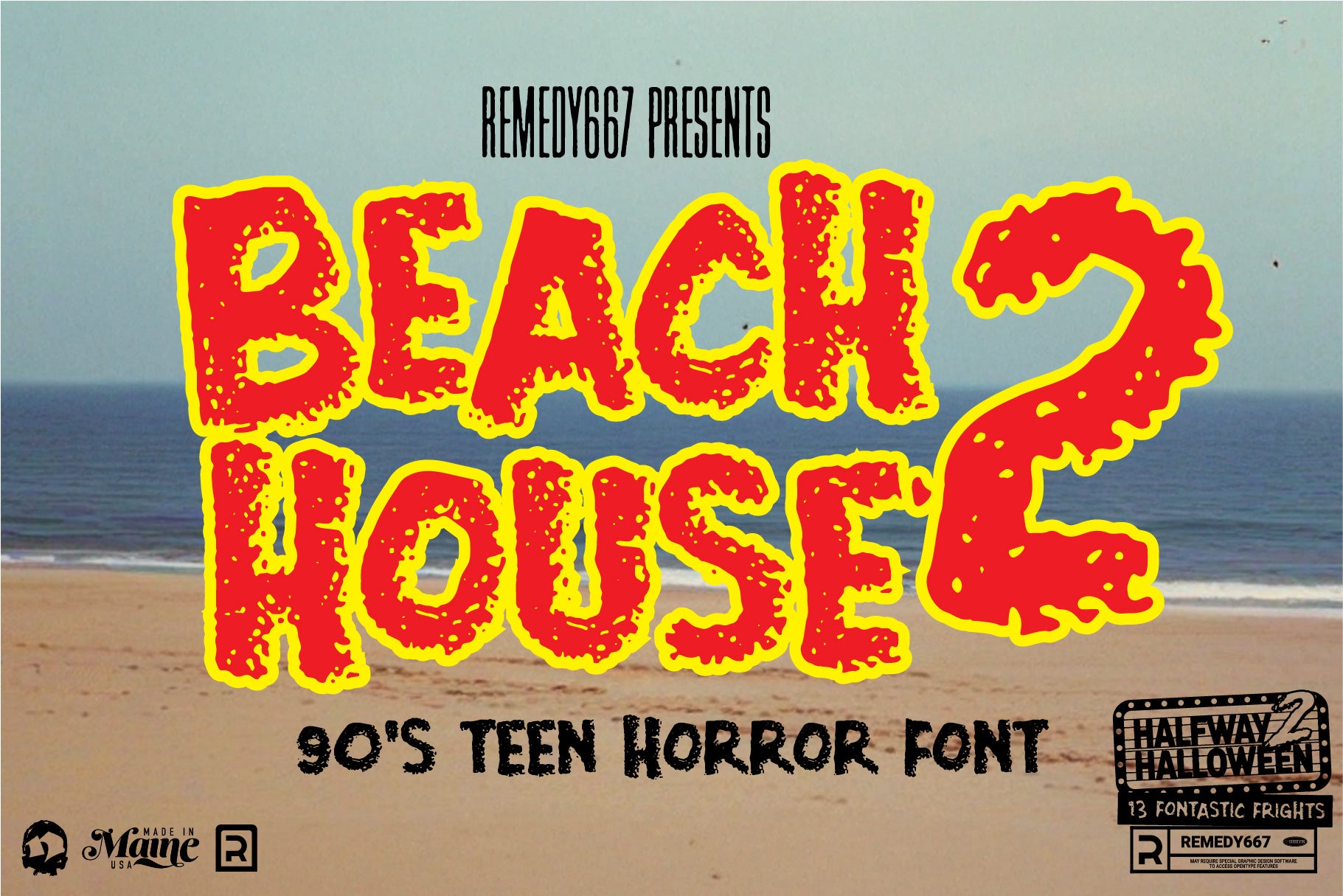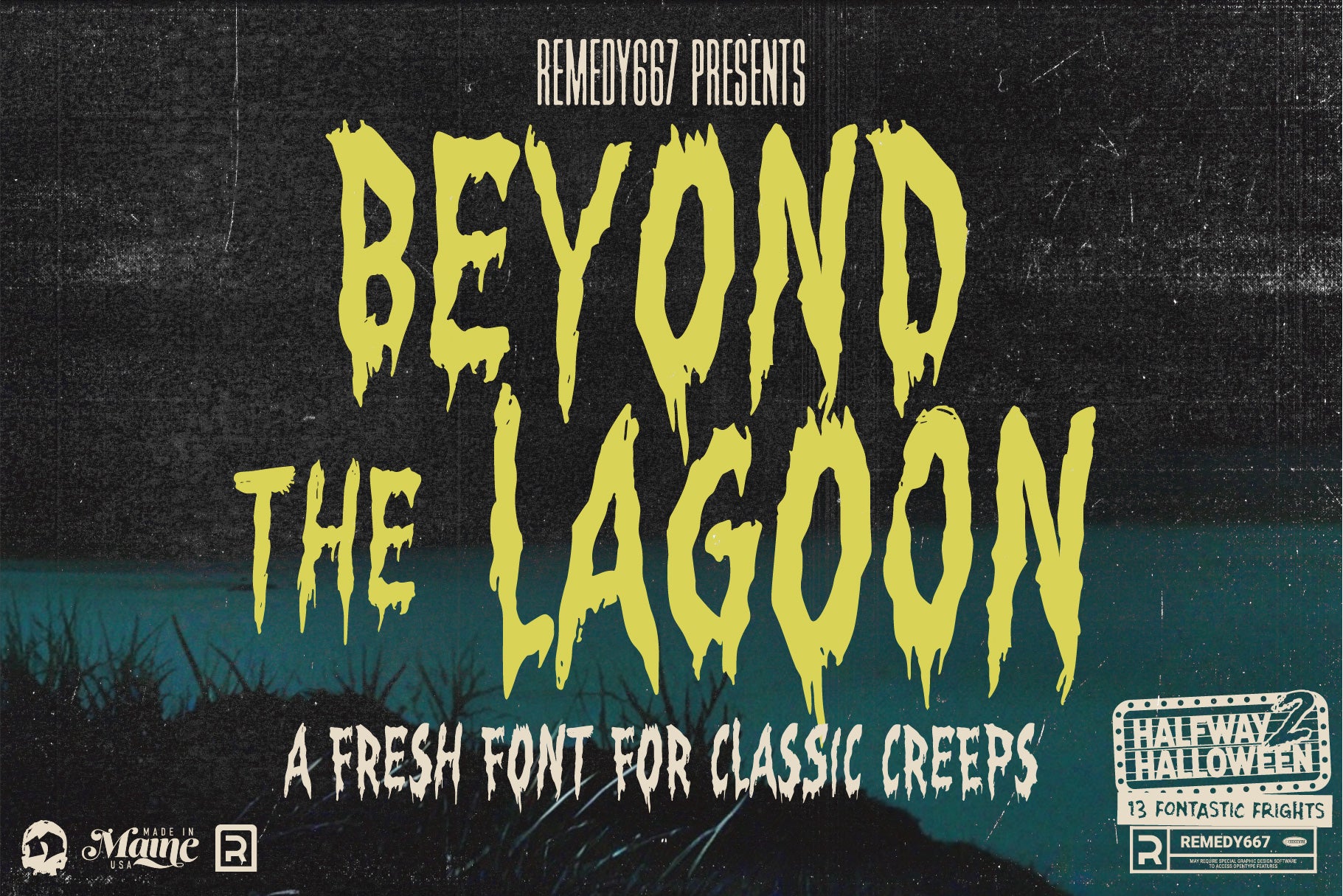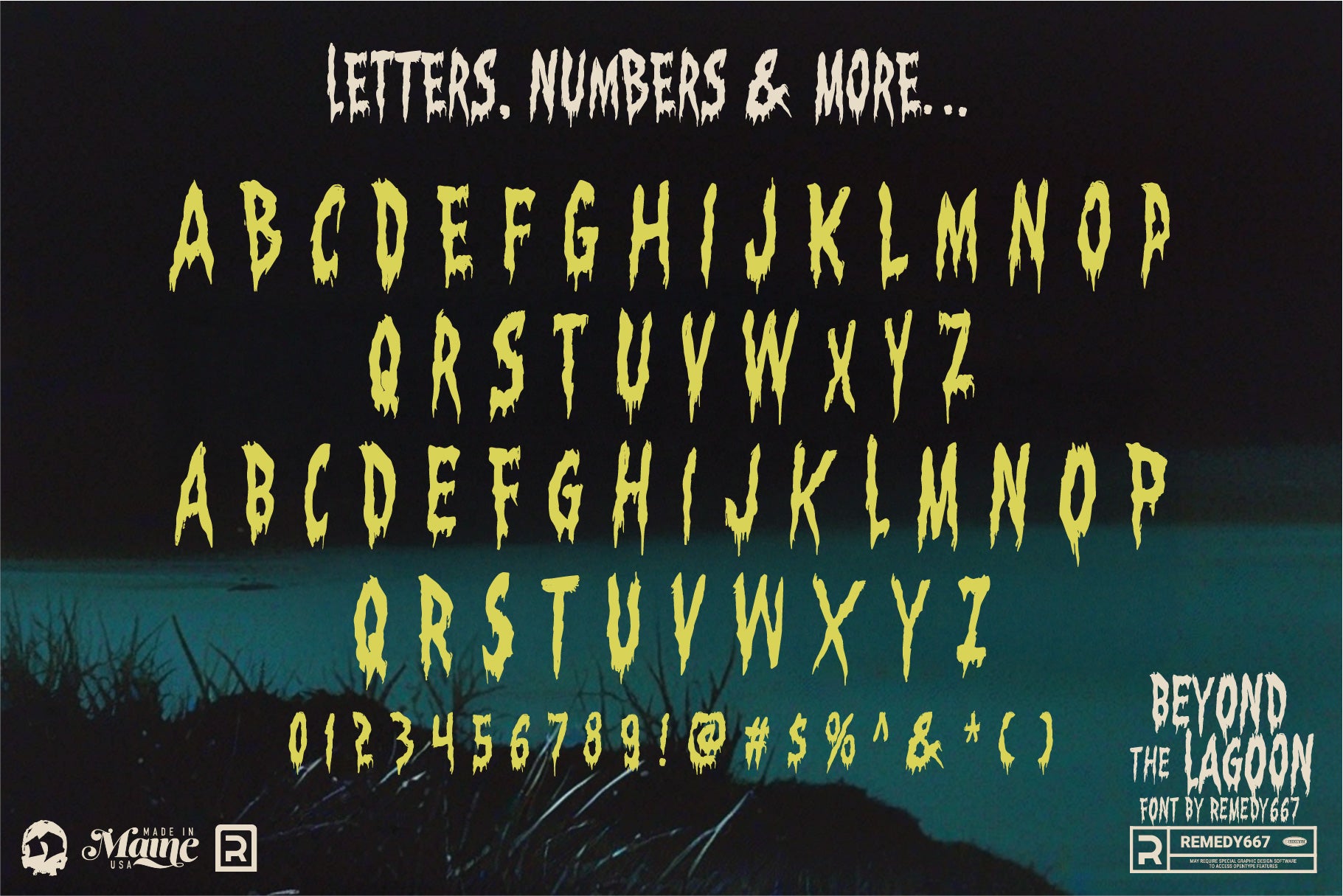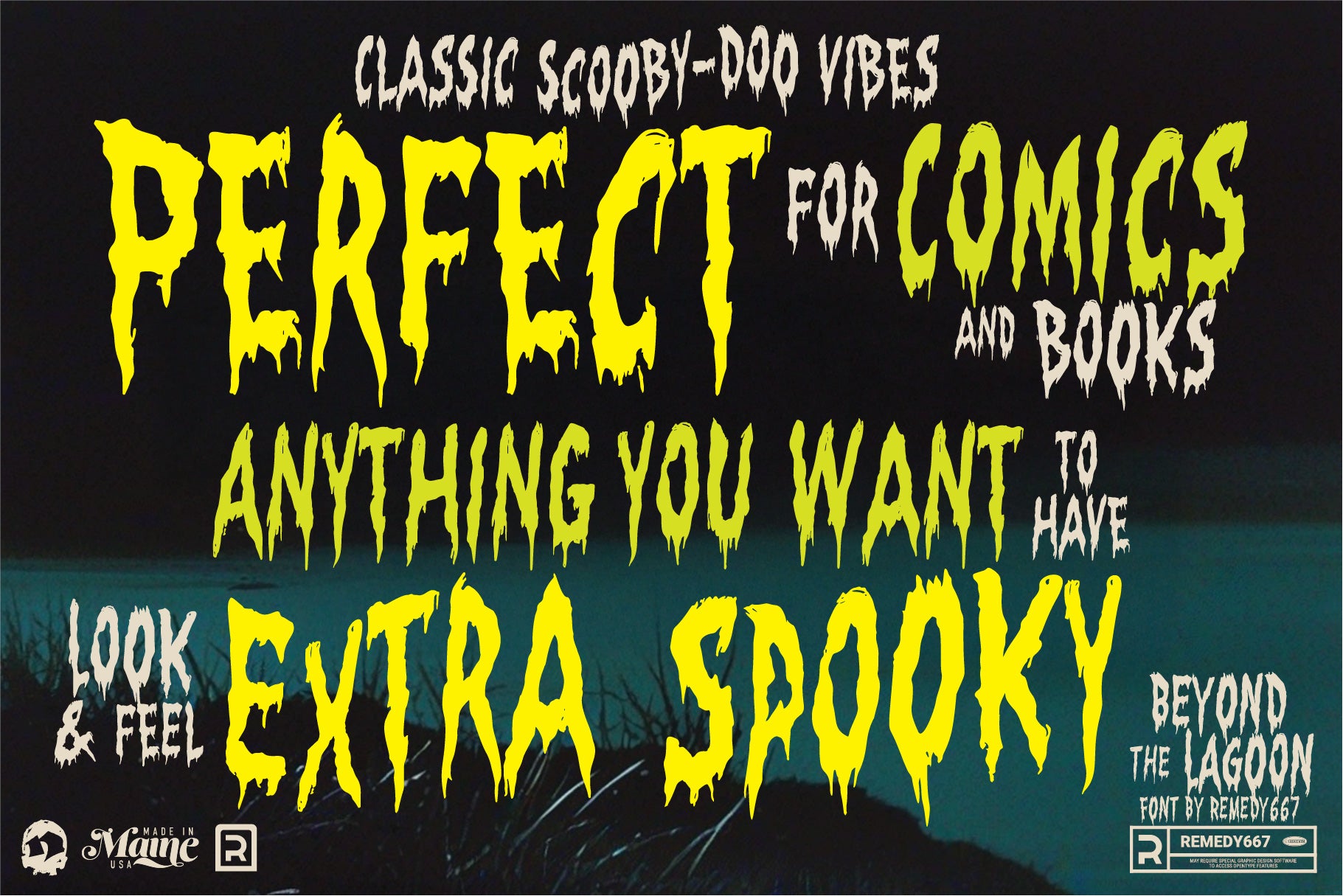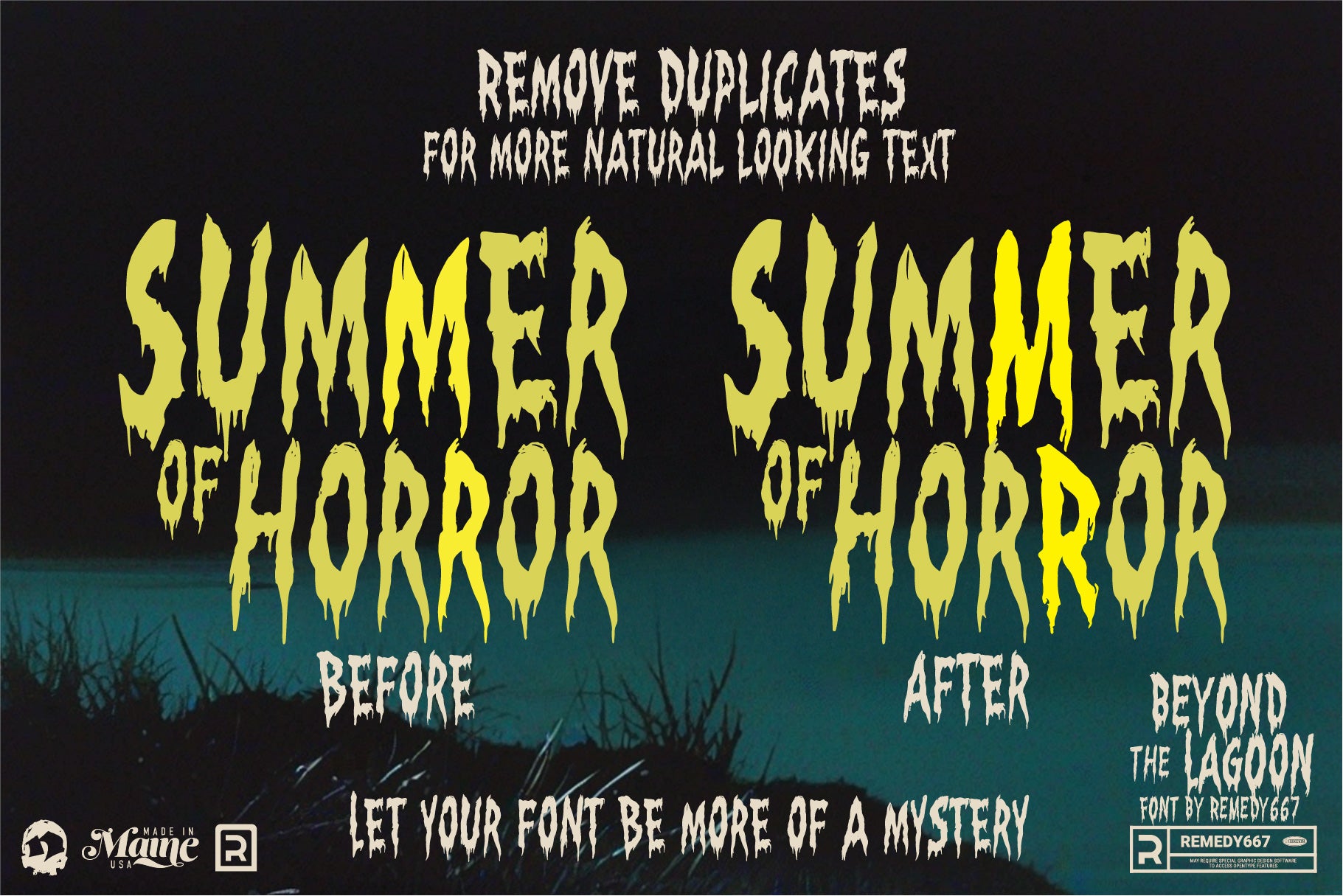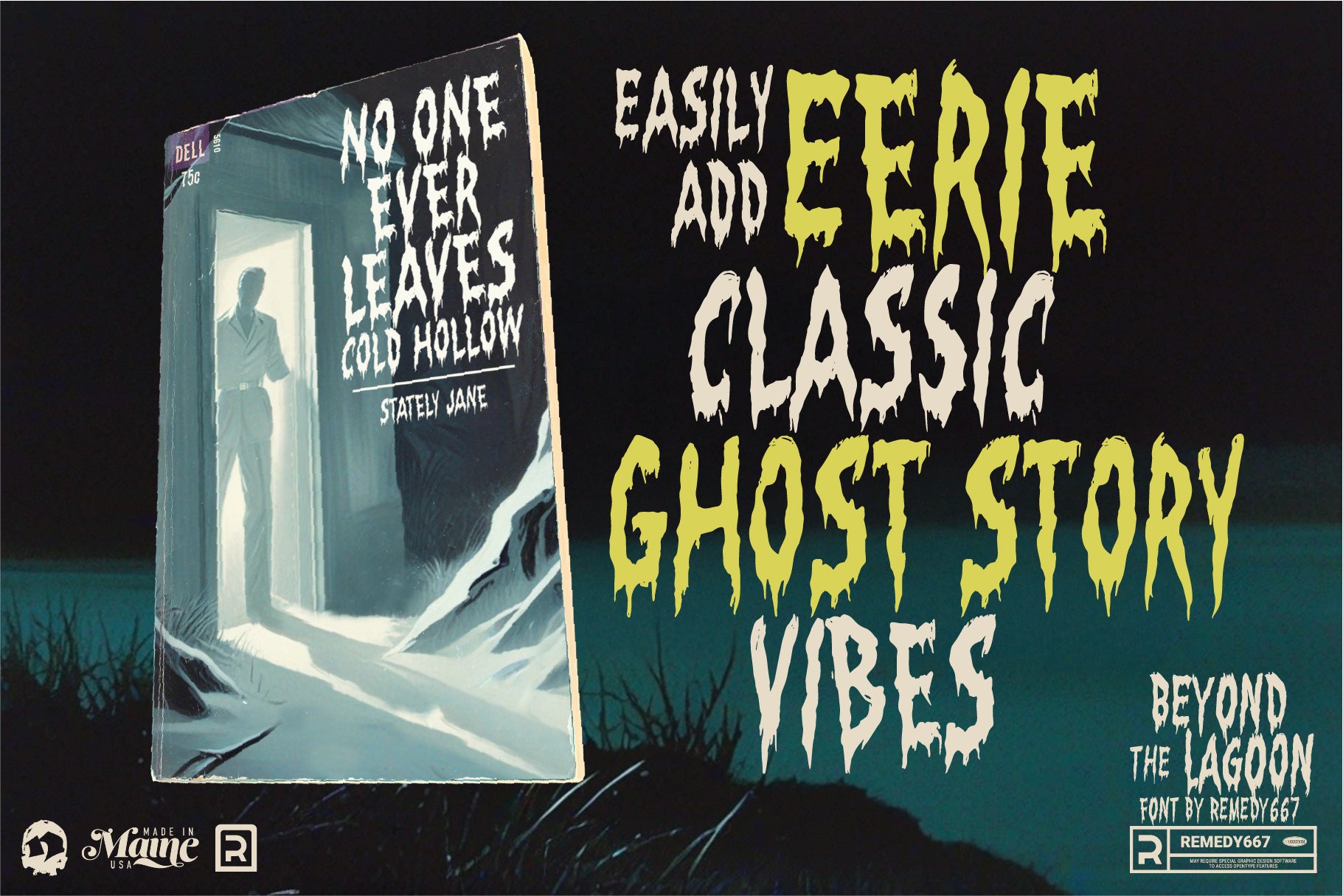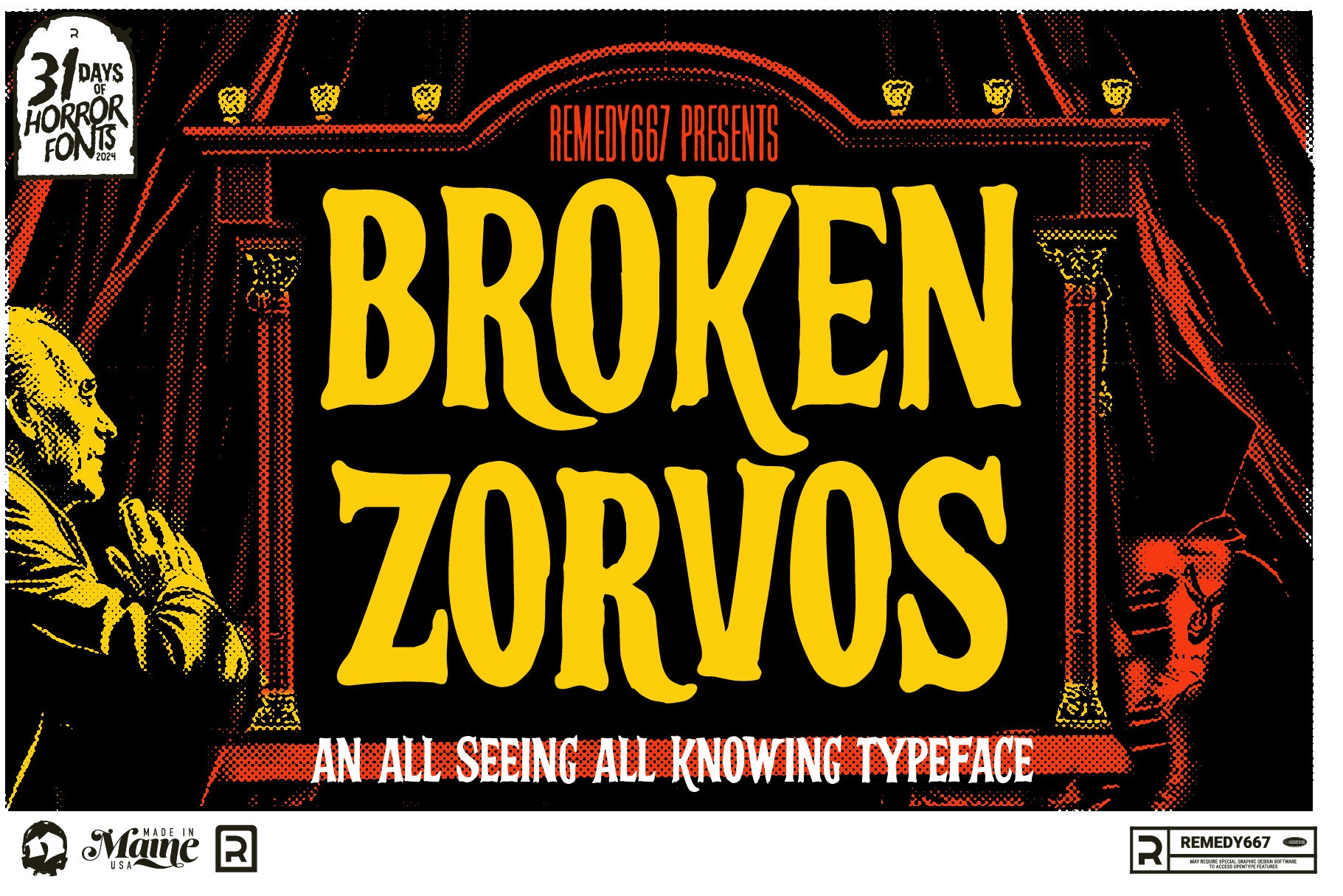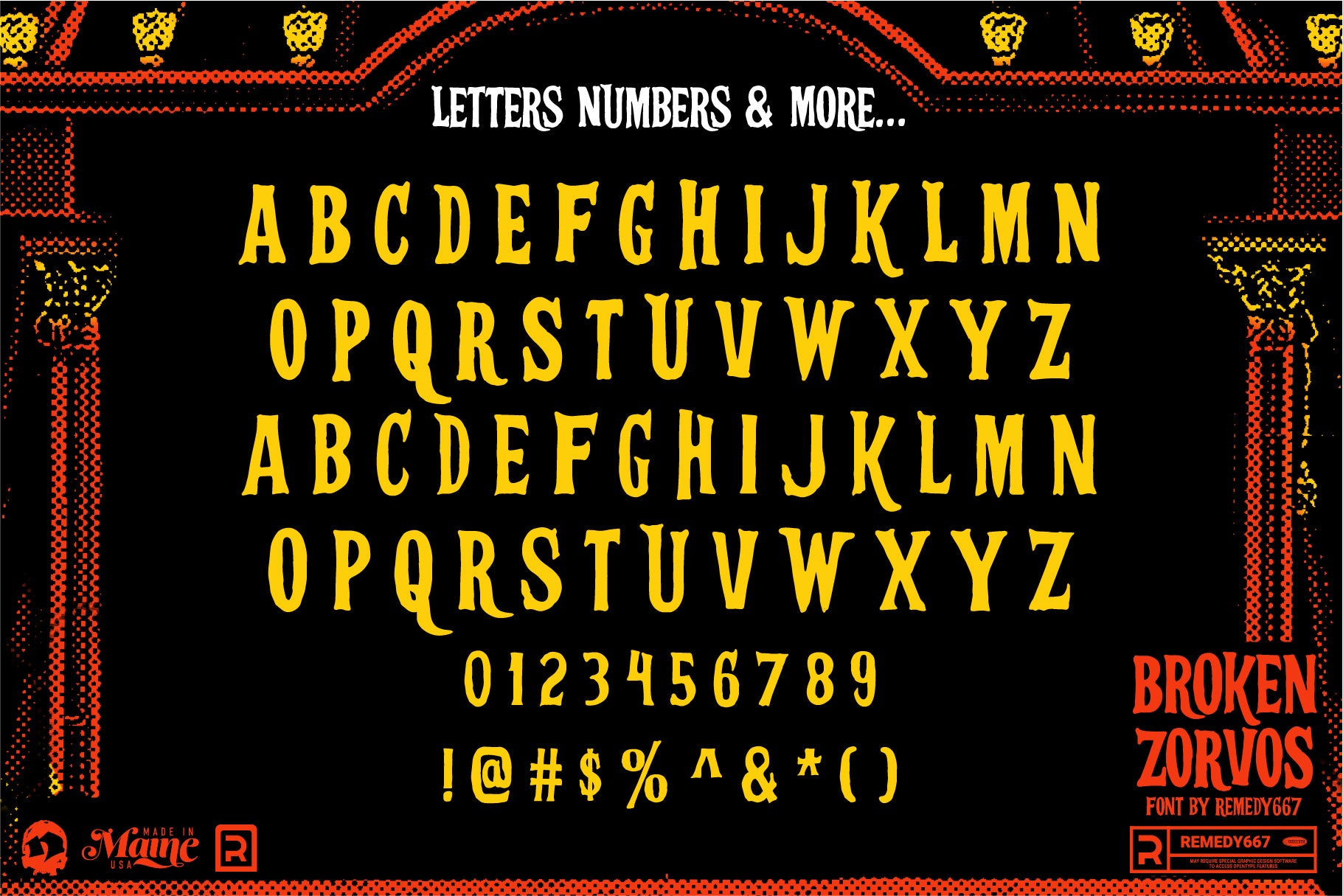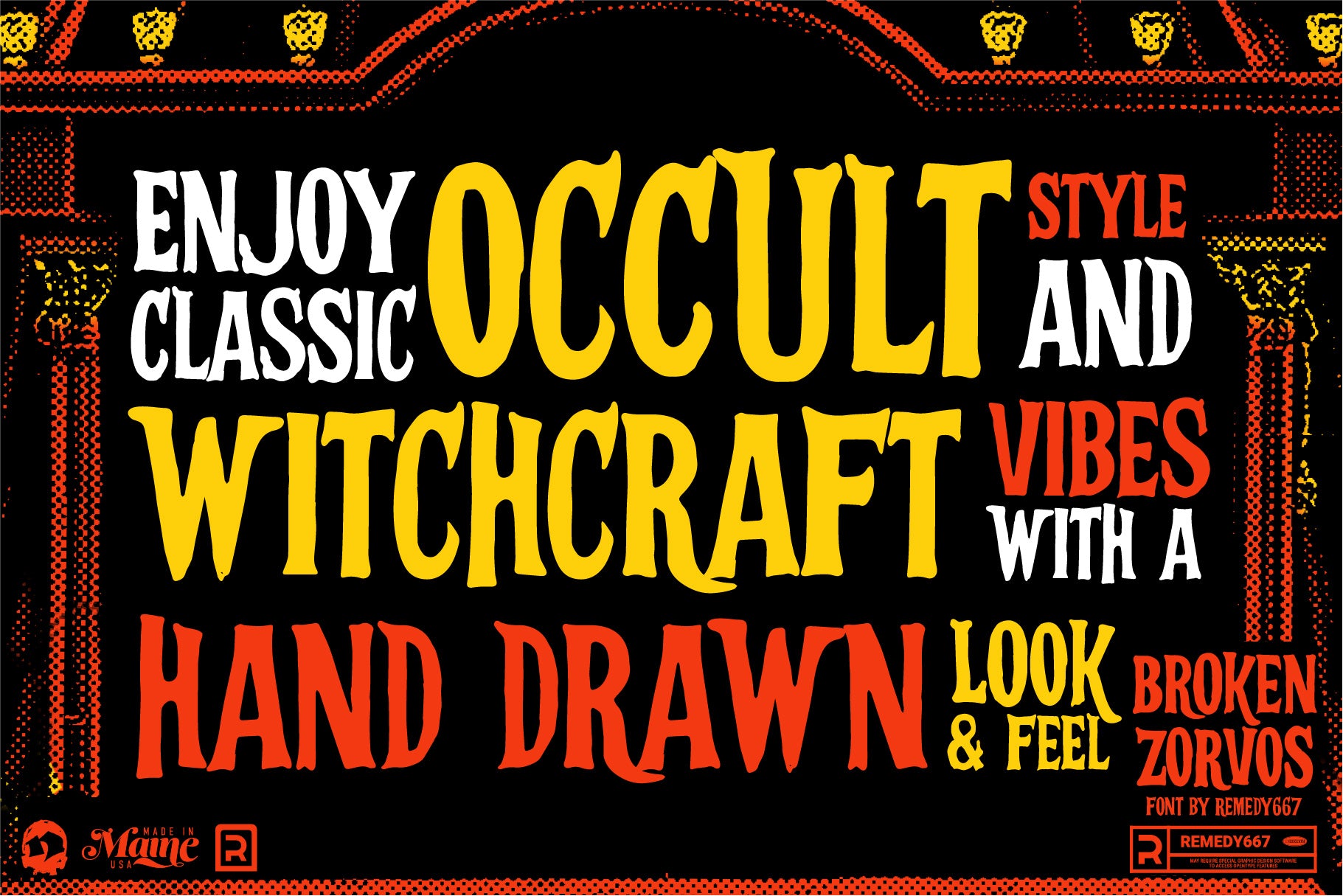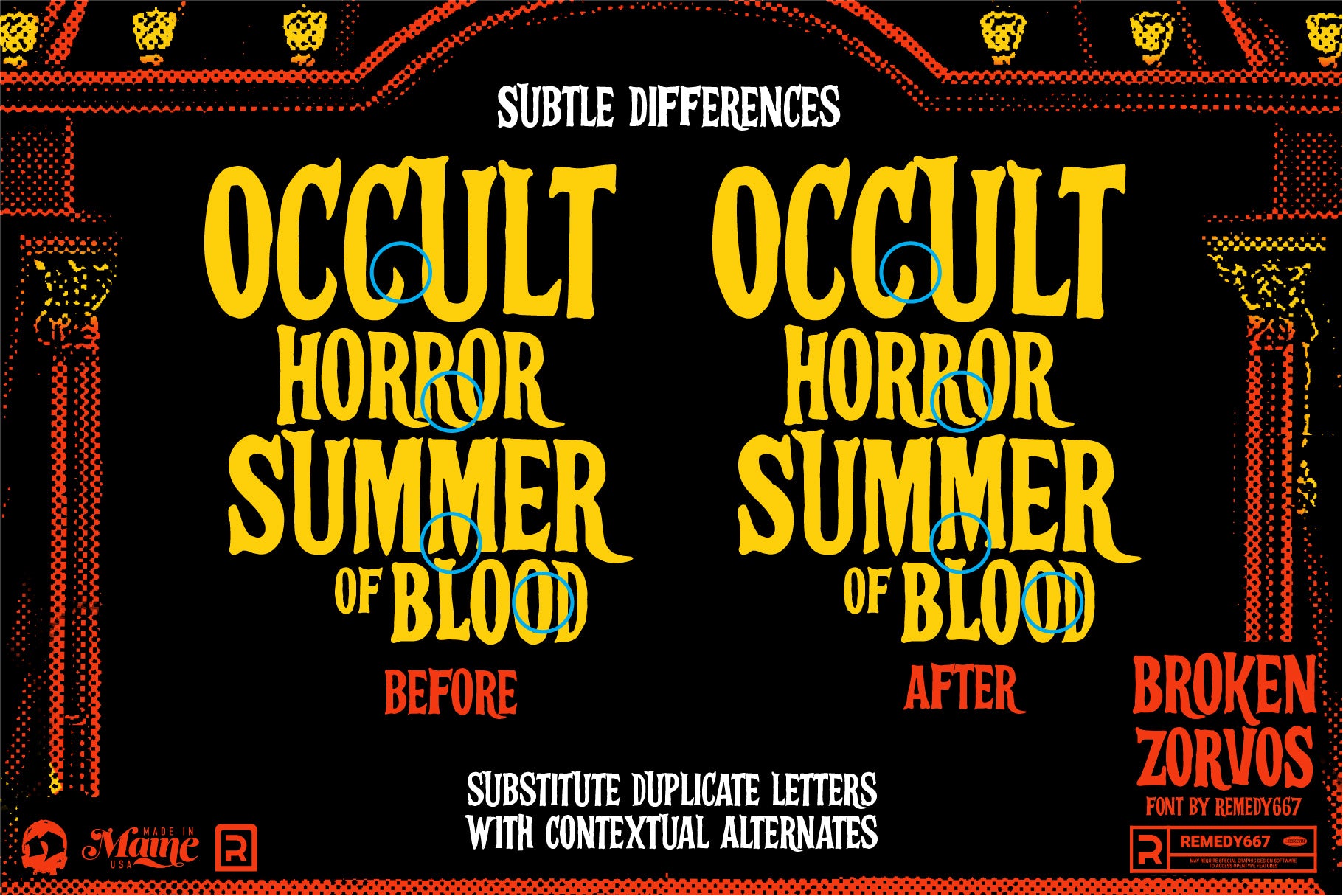
Bikini Bloodshed Horror Font Bundle
A blood-splattered bundle of scream-worthy fonts inspired by VHS slashers, vintage horror comics, and eerie midnight features.
Bikini Bloodshed is your ticket to a gore-drenched typography playground. Perfect for horror buffs, retro fanatics, and designers who like their type with a side of scream.
Beach House 2: A nostalgic 90s teen horror font that screams summer slasher vibes and neon-stained VHS covers.
Beyond the Lagoon: A fresh, wet font for classic creeps, soaked in Creature Feature charm and swampy terror.
Broken Zorvos: The all-seeing, all-knowing typeface built for mystics, seances, and pulp magazine headlines.
Camp Arawak: A whittled-style font perfect for summer camp slashers, vintage patches, and chilling campfire tales.
Ghouls Club: A blood-dripping font with bold attitude—ideal for undead zines, punk flyers, and horror-core logos.
Haunted Hollow: A classic haunted house font for your next mid-century mystery design. Think foggy graveyards and flickering streetlamps.
Shadows of Blood: A noir-drenched typeface that oozes with gothic elegance—designed for horror titles, crime thrillers, and eerie ephemera.
Built-In Backstory: Each font evokes a distinct horror subgenre—from 1950s monsters to 1990s mall horror.
Authentic Retro Aesthetic: Designed with painstaking attention to vintage details—from VHS grit to B-movie theatrics.
Versatile for All Scares: Perfect for posters, merch, packaging, branding, and any spooky creative project.